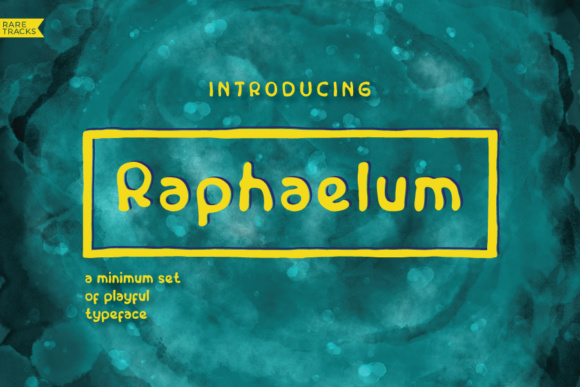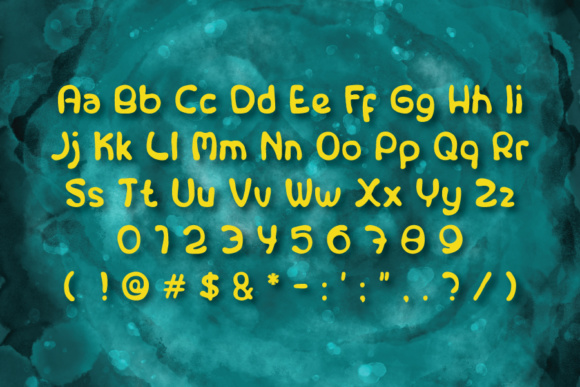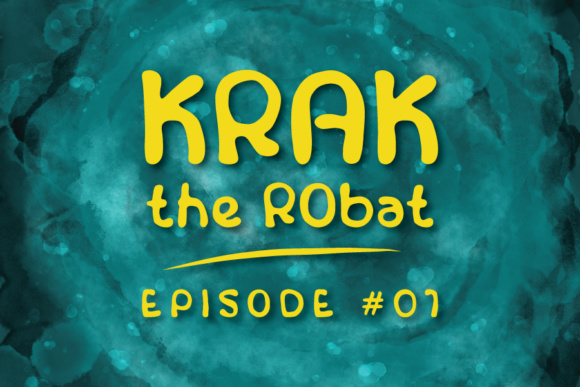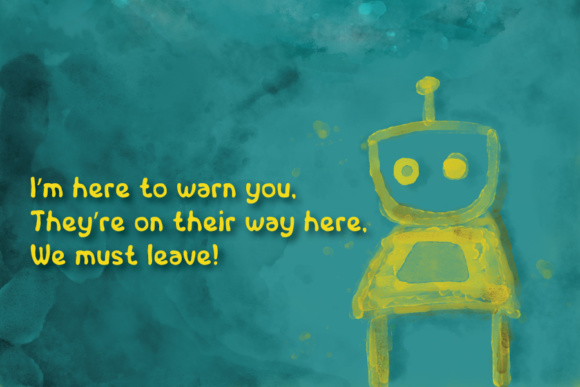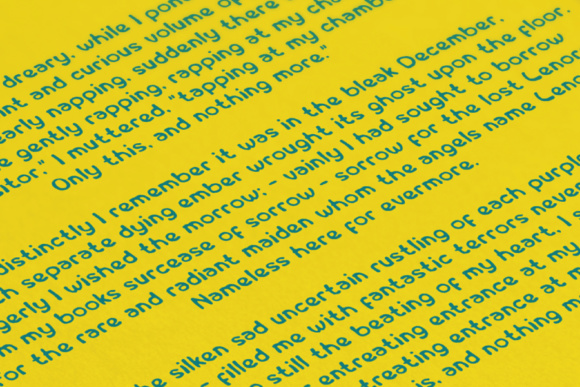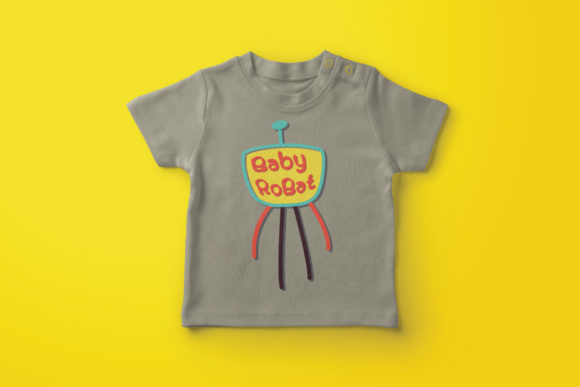
Raphaelum Font
About Raphaelum Font
The Raphaelum is a fun handwritten font, created to mimic children’s handwriting. It was inspired by playful kids and schools.